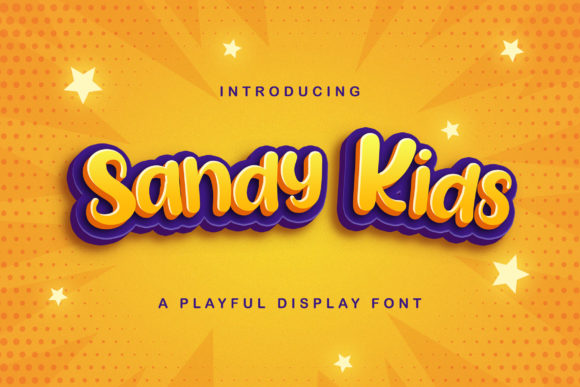
Sandy Kids is an enchanting font family specifically crafted for the educational sector. Immerse yourself in a world of playful learning adorned with the captivating charm of this delightful display font. Each character dances across the page with a vibrant energy, carefully designed to spark creativity and ignite the imagination of young minds.
Indulge in the endless possibilities of Sandy Kids. Its captivating curves and playful strokes will transform your school signs into captivating works of art, inviting students to embark on imaginative adventures. Adorn your educational materials with a touch of whimsy, making lessons more engaging and memorable.
Sandy Kids is not just a font; it's a gateway to a vibrant classroom experience. Its characters seem to whisper tales of wonder, encouraging curious minds to explore the world of learning. Unleash the magic of Sandy Kids and watch as your students' imaginations take flight, soaring to new heights of creativity.